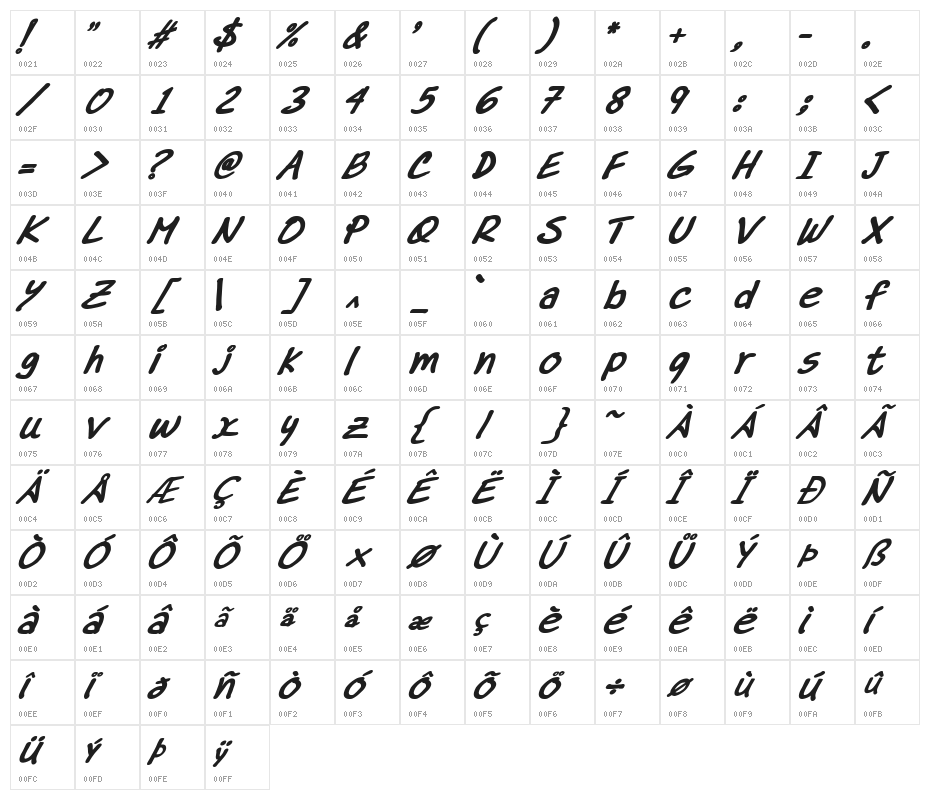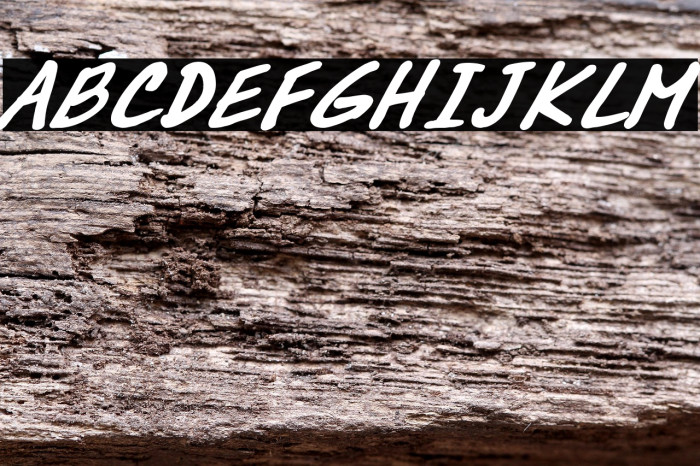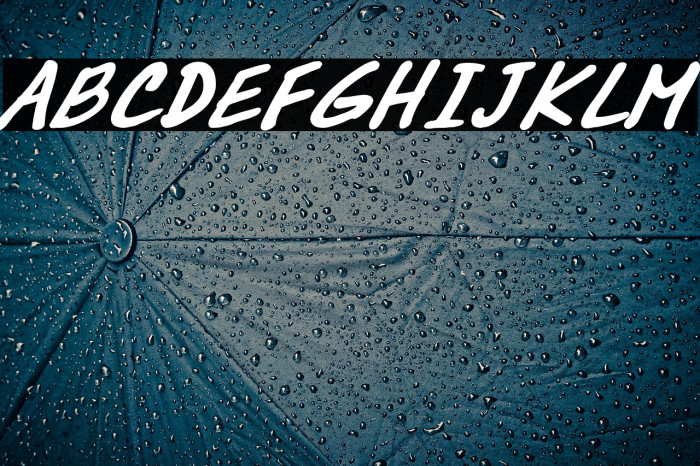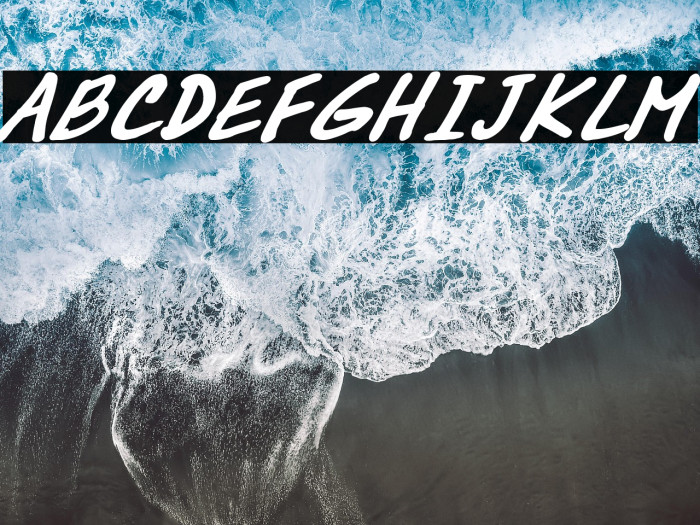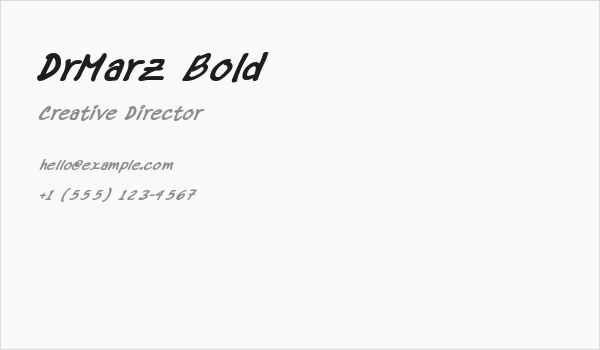
DrMarz Bold Font
DrMarz Bold Description
This font showcases a bold and dynamic script style, characterized by its fluid and connected strokes. The letters have a handwritten appearance, exuding a sense of energy and movement. The uppercase and lowercase letters maintain a consistent flow, with slightly exaggerated curves and loops that enhance its expressive nature. The numerals and special characters are equally stylized, ensuring a cohesive look across all glyphs. This font's boldness makes it stand out, while its script nature adds a touch of elegance and informality.
| Proposed Projects | Ideal for projects requiring a personal touch, such as invitations, greeting cards, or branding materials that aim to convey creativity and warmth. |